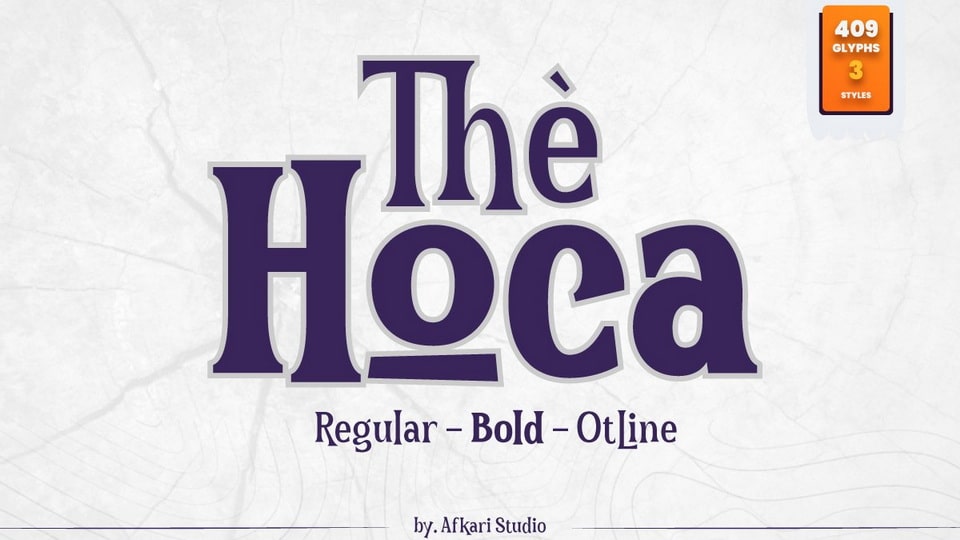
Download The Hoca font, a modern and classy display typeface with a unique and quirky look. The Hoca font is perfect for branding projects, clothing, logos, product packaging,
Designer: Afkari Studio